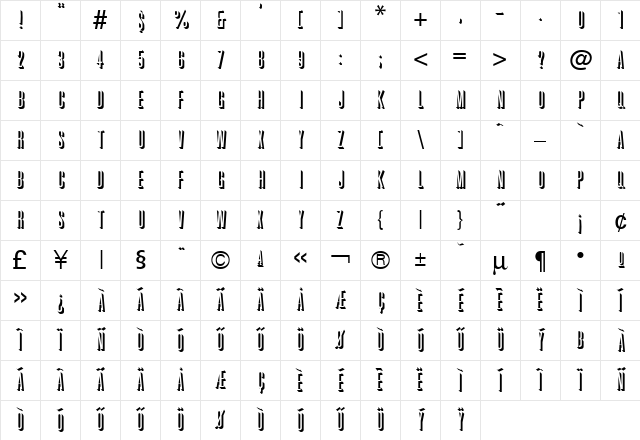
H_GriffonShadow Regular
Design Context for H_GriffonShadow
H_GriffonShadow is built around its visual character rather than neutral utility - its distinctive forms are designed to make an impression at display sizes.
Font Pairing: Pair with a clean neutral sans-serif for body copy to let H_GriffonShadow's character lead without overwhelming the composition.
Pro Tip: Use H_GriffonShadow exclusively at display sizes - it was designed to be seen, not read at length. Let a neutral companion handle body copy.